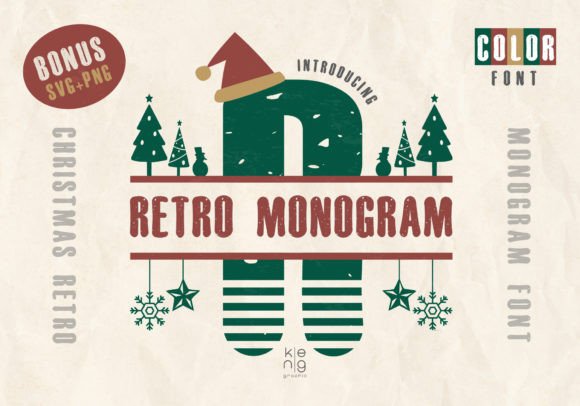
Step into a world where nostalgia meets modernity with Retro Monogram, the font that captures the essence of vintage charm. Inspired by the electrifying 70s and 80s, this display font is a visual masterpiece that commands attention with its distinctive curves and softer corners. It's more than just a font; it's a gateway to creativity, a journey to a bygone era.
With Retro Monogram, you'll create designs that are not just visually appealing but also deeply evocative. Its unique shape is a canvas for your imagination, inviting you to weave tales, convey emotions, and craft messages that resonate. Each letterform is a work of art, infused with a retro soul and a contemporary twist.
Whether you're crafting flyers that pop, creating logos that ooze personality, or designing posters that transport viewers back in time, Retro Monogram is your trusted companion. Its versatility knows no bounds, adapting seamlessly to a myriad of projects. It's the font that adds a touch of magic to invitations, social media graphics, and website headers, ensuring your designs stand out from the crowd.
Retro Monogram is more than just a font; it's an experience. It's a journey through time, a celebration of the past with a modern twist. It's a chance to connect with your audience on a deeper level, evoking emotions and creating memories that last. So, embrace the allure of the past and step into the world of Retro Monogram, where creativity knows no limits.